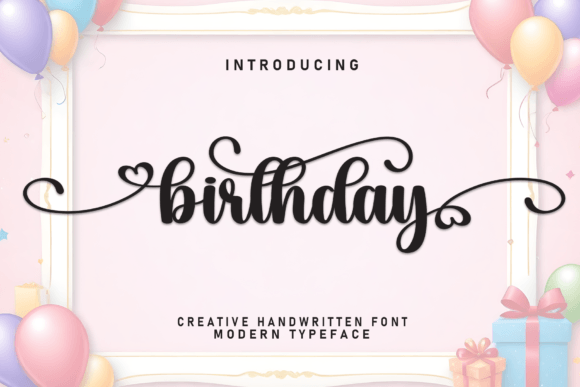
Unleash Your Creativity with Birthday Font
Have you ever stared at a blank page, wondering how to bring your creative vision to life? You’re not alone. We’ve all been there, trying to find the perfect combination of words and images to convey our message. That’s where the Birthday Font comes in – a sweet and friendly handwritten font that’s designed to make your designs pop.
This versatile font is perfect for a wide range of projects, from birthday invitations and greeting cards to social media posts and marketing materials. With its natural and unique style, the Birthday Font gives you the freedom to let your imagination run wild. Whether you’re a seasoned designer or just starting out, this font is a valuable addition to your toolkit.
Birthday Font Key Features
- Unique Characteristics: The font features playful, cursive script with decorative flourishes, making it perfect for birthday invitations, party decorations, and other celebratory designs.
- Font Style: Comes in two font styles: Regular and Bold, providing versatility for designers to create contrasting and visually appealing designs.
Birthday Font Review
Overall, I’d say the Birthday Font is a fun and playful choice for any celebration. It’s perfect for social media graphics, invitations, and other festive designs.
- The font’s cursive script is so cheerful and celebratory.
- It’s available in a range of colors and styles to match any theme.
- The font is highly customizable, making it easy to adjust to fit your design needs.
One of the things I appreciate most about the Birthday Font is its versatility. It’s not just limited to birthdays – it can be used for any occasion that calls for a celebratory tone.
- The font may be a bit too flashy for more formal designs or professional applications.
- Some users may find the font’s cursive script a bit difficult to read at smaller sizes.
Overall, I’d recommend the Birthday Font for anyone looking to add a pop of personality to their designs. Just be mindful of its limitations and use it thoughtfully.
Tips for Getting the Most Out of the Birthday Font
Use the Birthday Font in conjunction with colorful graphics and images to create a festive atmosphere.
Use the Birthday Font to create custom birthday invitations, cards, and decorations.
The Birthday Font is perfect for:
Birthday cards and invitations
Birthday party decorations and signs
Birthday social media posts and graphics
Alternatives to “Birthday Font” for Designers
Great Vibes is a modern, elegant script font that’s perfect for creating a celebratory atmosphere. It’s ideal for birthday invitations, event branding, and social media graphics. Compared to Birthday Font, Great Vibes has a more refined and sophisticated feel, making it suitable for high-end events or luxury brands.
Carolyna Pro is a stylish, cursive font that’s great for adding a touch of whimsy to birthday designs. It’s ideal for creative projects, such as party decorations, custom gifts, or social media posts. Unlike Birthday Font, Carolyna Pro has a more playful and artistic feel, making it perfect for designers who want to add a personal touch to their work.
Alex Brush is a beautiful, handwritten font that’s perfect for creating a warm and inviting atmosphere. It’s ideal for birthday cards, invitations, or social media posts. Compared to Birthday Font, Alex Brush has a more natural and organic feel, making it suitable for designers who want to add a human touch to their work.
Lato is a modern sans-serif font that’s great for creating a clean and elegant look. It’s ideal for birthday invitations, event branding, or social media graphics. Unlike Birthday Font, Lato has a more minimalist and sophisticated feel, making it perfect for designers who want to create a professional and modern look.